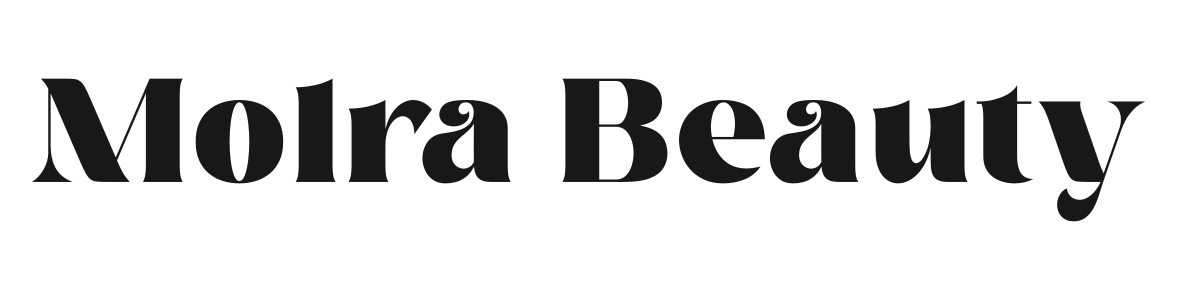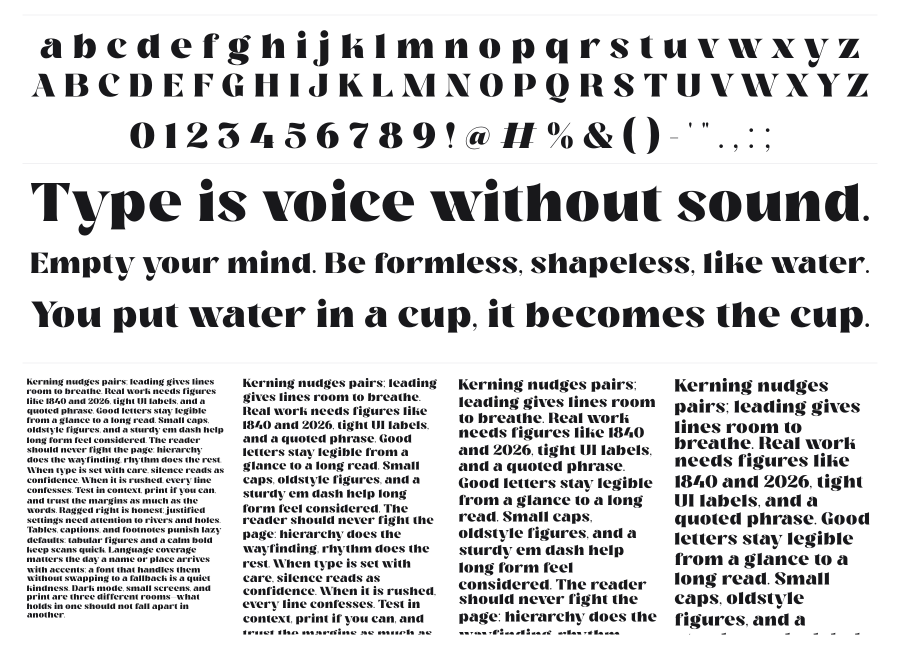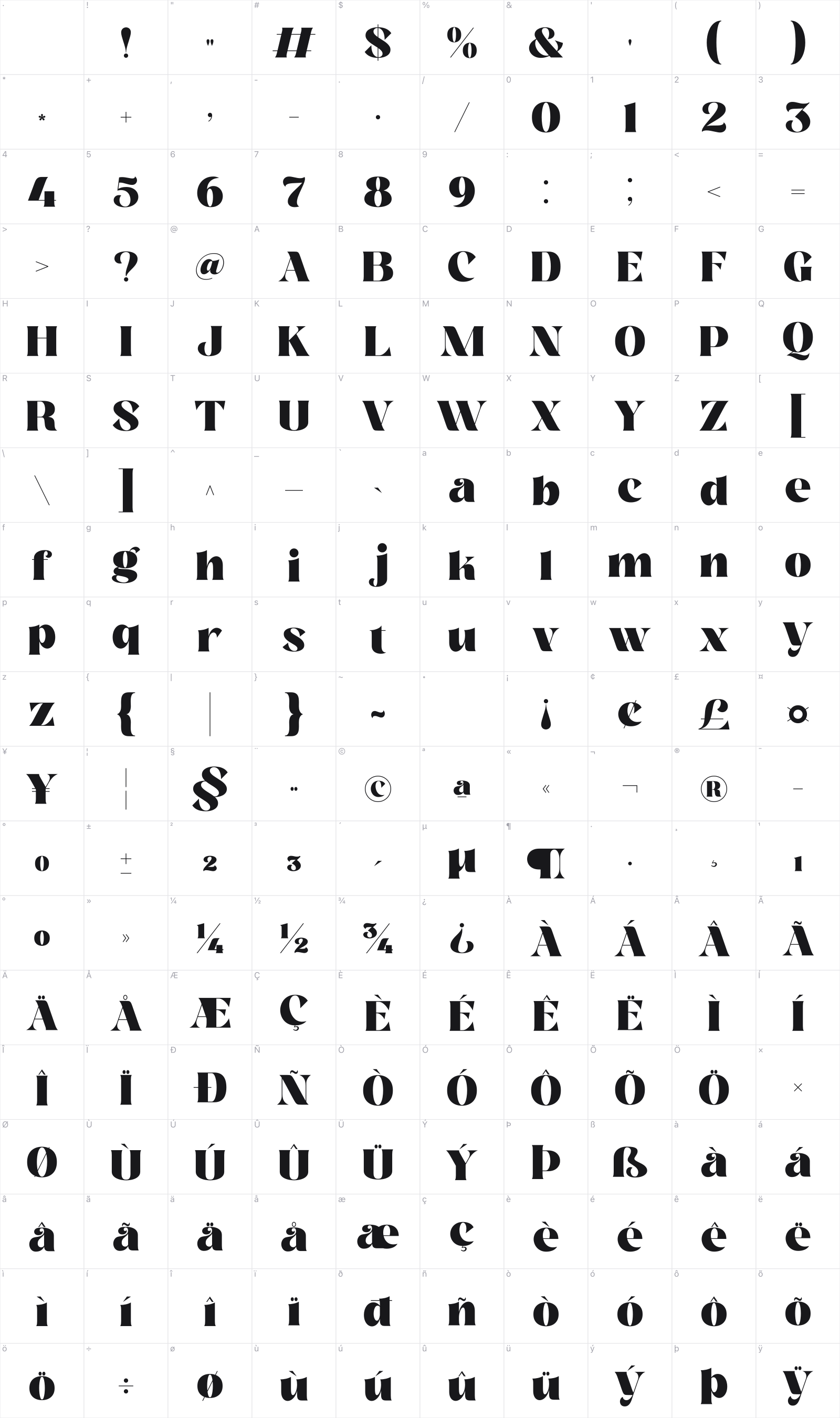
Molra Beauty
Molra Beauty is a bold, high-contrast Didone-style serif with the dramatic thick-thin strokes and commanding presence of classic fashion typography. The heavy weight and wide proportions push it firmly into headline territory, where its stark contrast reads as confident and refined. It fits naturally in beauty branding, luxury packaging, and editorial design.